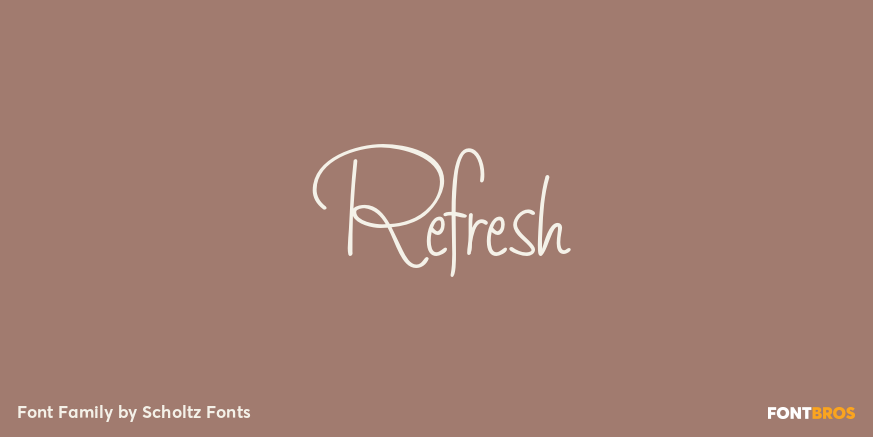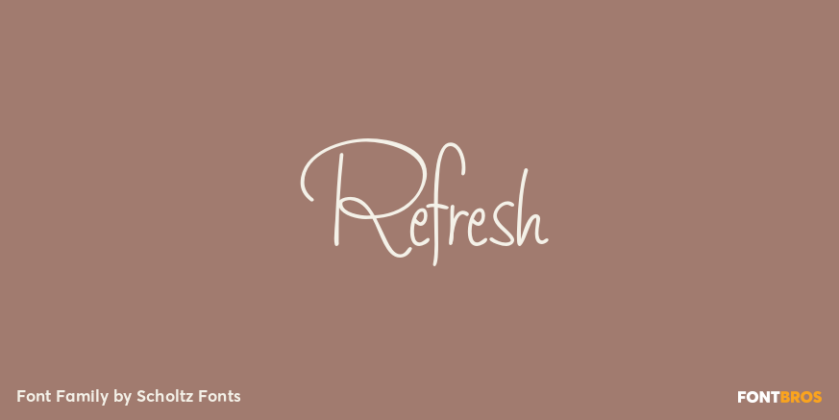
About Refresh
Refresh was inspired and partly based on handwritten text from advertisements for a popular cola-based soft drink from the 1950s. I designed the missing characters in the handwriting style of the original. Refresh, with its three styles, is ideal for…